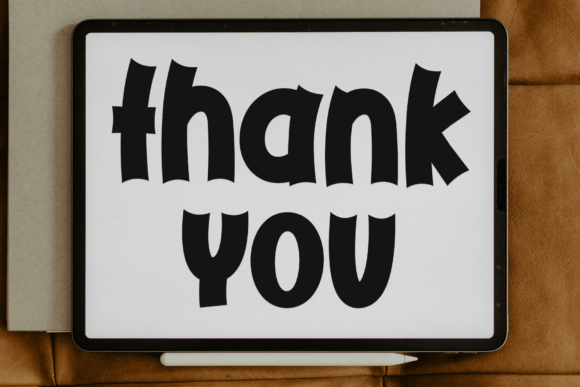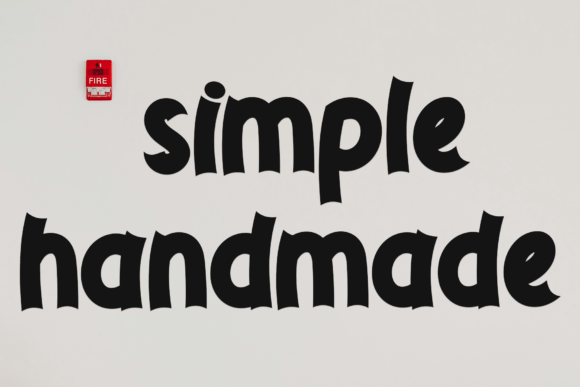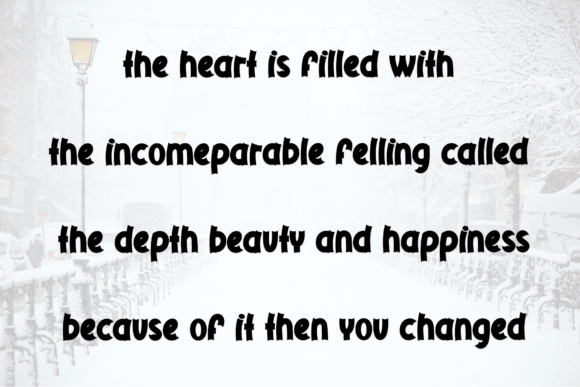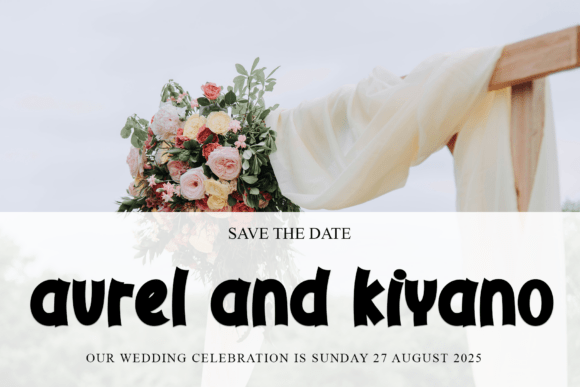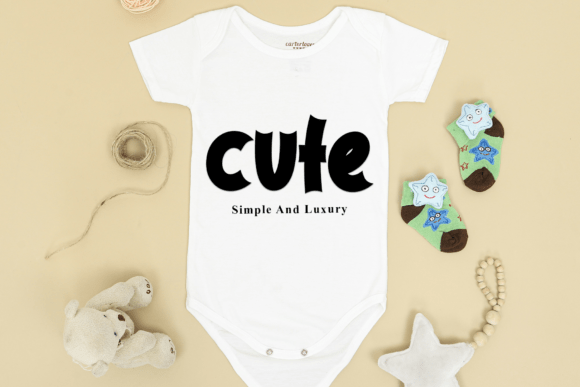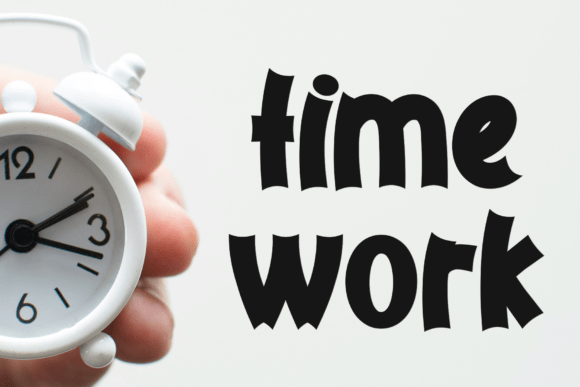
Discover the Charm of Digital Papers Font: A Casual and Creative Companion for Designers
In the realm of digital design, fonts play a pivotal role in conveying messages, evoking emotions, and creating lasting impressions. Among the myriad of fonts available, Digital Papers stands out as a beacon of warmth, friendliness, and creativity. This article delves into the unique characteristics of the Digital Papers font, exploring its features, applications, and the distinctive charm it brings to various design projects.
The Essence of Digital Papers Font
Digital Papers is a casual and creative font that exudes warmth and friendliness. Its round, playful strokes create a relaxed and approachable feel, making it an ideal choice for designers looking to infuse their projects with a personal touch. Whether you’re working on personal projects, crafting invitations, or designing engaging social media graphics, Digital Papers offers a charming, hand-drawn aesthetic that adds a fun and unique touch to any design.
Key Features of Digital Papers Font
- Casual and Creative: Digital Papers boasts a laid-back vibe that sets it apart from more formal fonts. Its creative flair makes it perfect for projects that require a personal and artistic approach.
- Warm and Friendly: The font’s round and playful strokes evoke a sense of warmth and friendliness, making it suitable for designs aimed at a broad audience.
- PUA Encoded Glyphs: Digital Papers is equipped with standard PUA (Private Use Area) Encoded glyphs. This feature ensures compatibility with various software applications, including Adobe Photoshop, Corel, Adobe Illustrator, Canva, and many others, providing designers with flexibility in their creative process.
- Hand-Drawn Aesthetic: The font’s charming, hand-drawn look adds a unique and fun element to designs, making them stand out in a sea of more conventional typography.
Applications of Digital Papers Font
The versatility of Digital Papers font makes it a valuable asset for a wide range of design projects. Here are some of the areas where this font truly shines:
- Personal Projects: For bloggers, vloggers, and social media influencers, Digital Papers offers a way to maintain a consistent and personal brand voice across their digital platforms.
- Invitations and Announcements: The font’s friendly and approachable feel makes it perfect for crafting invitations, birthdays, weddings, and other celebrations that require a personal touch.
- Social Media Graphics: In the competitive world of social media, standing out is crucial. Digital Papers can help create engaging, eye-catching graphics that resonate with audiences.
- Branding and Packaging: For small businesses and startups, establishing a brand identity is vital. Digital Papers can be used in logos, product packaging, and marketing materials to convey a friendly and approachable brand image.
Tips for Using Digital Papers Font Effectively
To maximize the impact of Digital Papers font in your designs, consider the following tips:
- Mix and Match: Don’t be afraid to experiment by pairing Digital Papers with other fonts. A contrasting font can help highlight key information or add visual interest to your design.
- Play with Sizes: Utilize varying font sizes to create a hierarchy of information. This can guide the viewer’s eye through your design and emphasize important details.
- Color Matters: Choose colors that complement the warmth and friendliness of Digital Papers. Pastel shades, earth tones, and vibrant colors can enhance the font’s playful and creative vibe.
Digital Papers font is a delightful addition to any designer’s toolkit. Its casual, creative, and friendly nature makes it an excellent choice for a wide array of projects. With its PUA Encoded glyphs, designers can easily incorporate this charming font into their workflow, regardless of the software they use. By embracing Digital Papers, designers can infuse their work with a unique, hand-drawn aesthetic that resonates with audiences and leaves a lasting impression.
Whether you’re a seasoned professional or a hobbyist, Digital Papers font invites you to explore new creative horizons. So, dive in, and let this versatile font be your companion in crafting designs that are not only visually appealing but also warm, friendly, and uniquely yours.